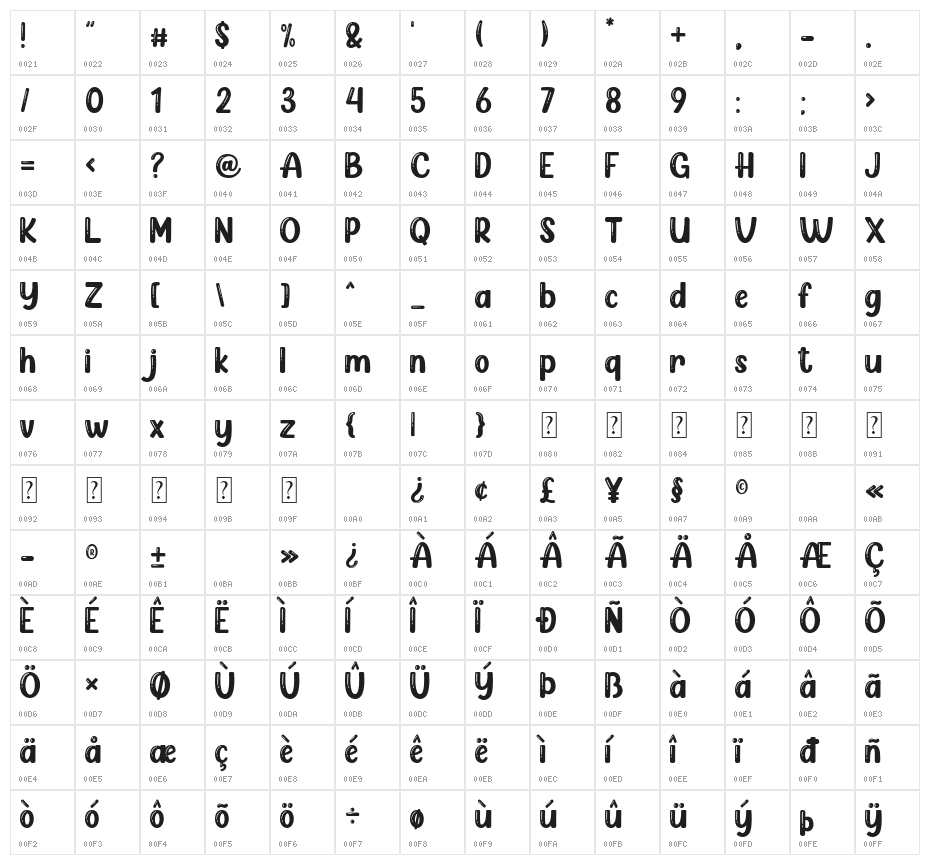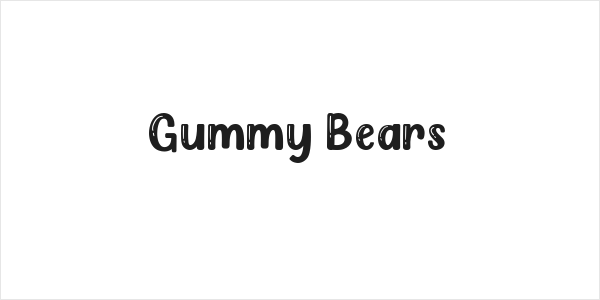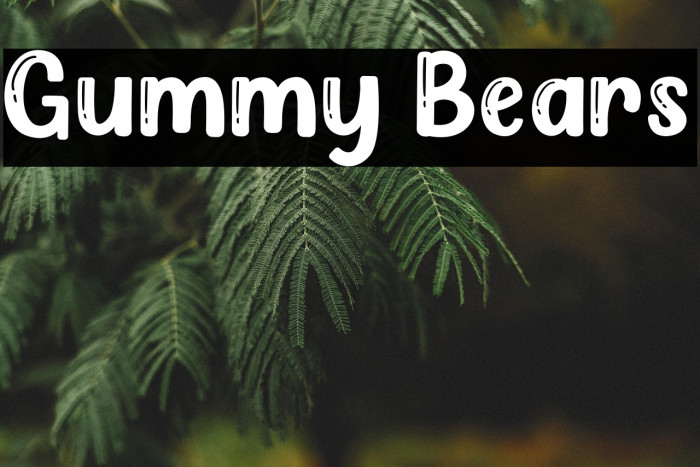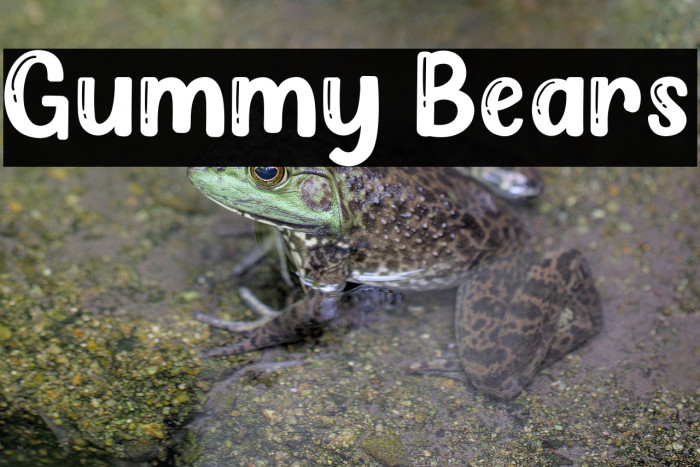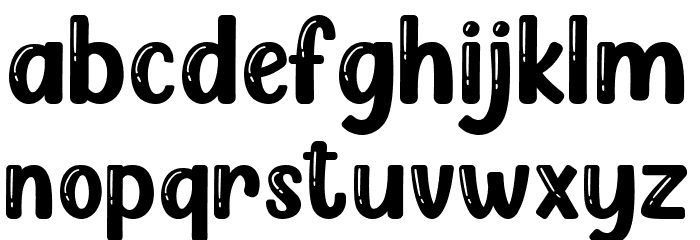
Gummy Bears Font
Gummy Bears Description
This playful and bold font features rounded edges and a bubbly appearance, reminiscent of childhood sweets and fun. The letters are thick and substantial, with a slight irregularity that adds to their charm. Each character has a friendly and approachable feel, making it ideal for projects that aim to convey joy and creativity. The font's design includes both uppercase and lowercase letters, numerals, and a variety of special characters, all maintaining the same whimsical style. Its bold strokes and rounded forms make it stand out, ensuring readability while adding a touch of fun.
| Overall Style | Playful, Fun, Whimsical |
| Proposed Projects | Ideal for children's books, playful branding, party invitations, and creative posters. |